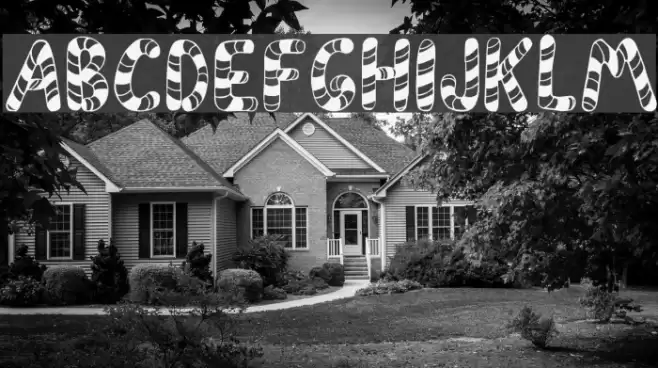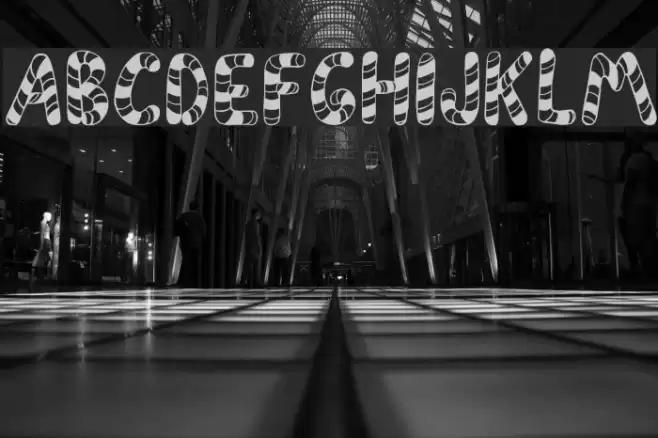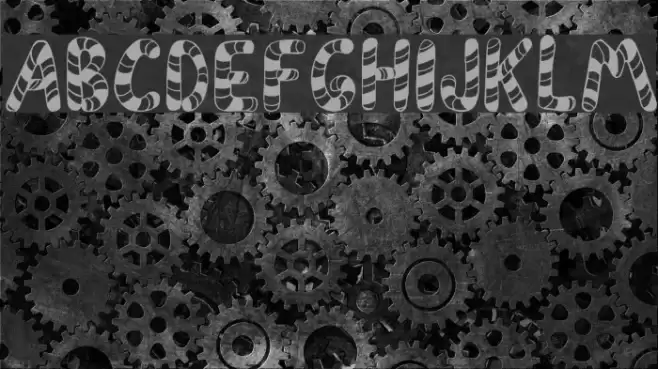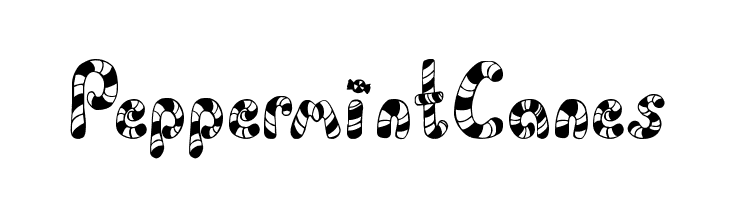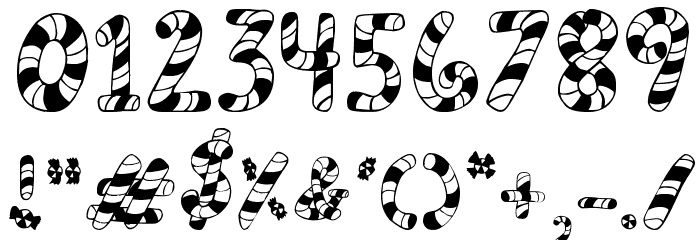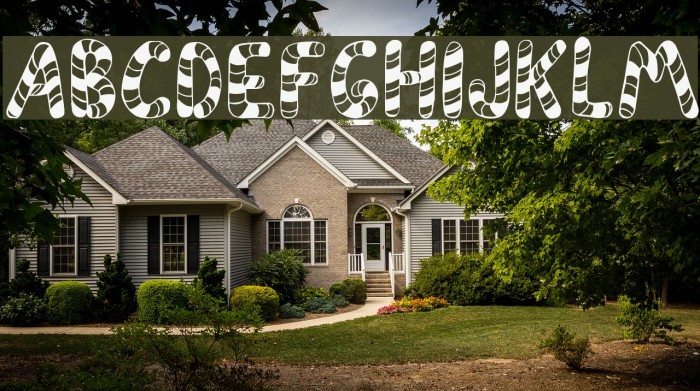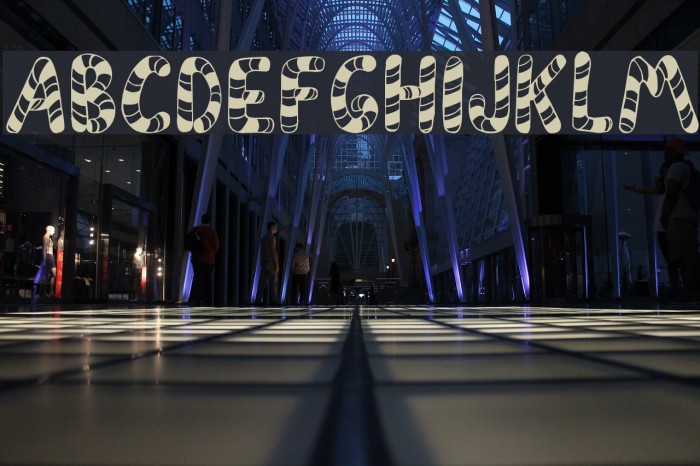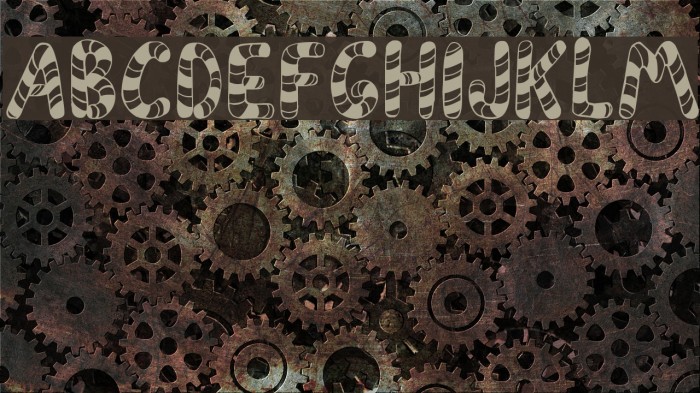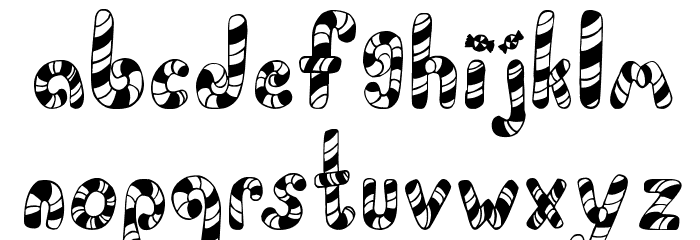
PeppermintCanes Font
PeppermintCanes Description
This playful and festive font features characters designed to resemble peppermint candy canes, with a bold and whimsical style. Each letter and number is adorned with stripes that mimic the iconic look of candy canes, creating a fun and eye-catching appearance. The font maintains a consistent pattern throughout, with rounded edges and a slightly chunky form that enhances its decorative appeal. Ideal for holiday-themed projects, it brings a sense of joy and celebration to any design. The characters are well-spaced, ensuring readability while maintaining their unique style. This font is perfect for adding a touch of holiday spirit to your designs.
A festive, candy cane-inspired font with bold, striped characters from Uncategorized fonts.
- Proposed Projects: Ideal for holiday cards, festive posters, party invitations, and seasonal branding.